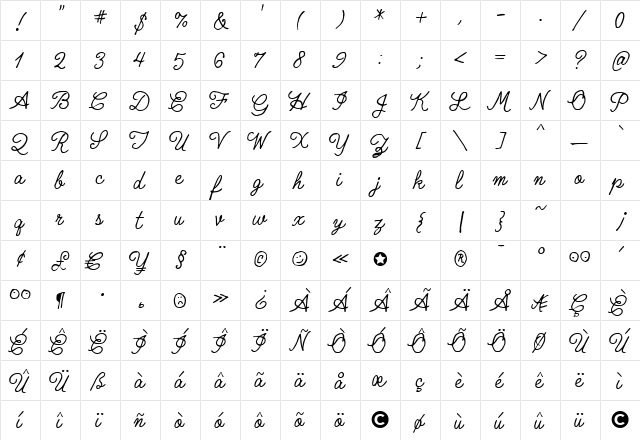
QuimbyMayoral Regular
Design Context for QuimbyMayoral Typeface
QuimbyMayoral takes a measured approach to typography — its balanced proportions and neutral character make it a reliable workhorse for both digital and print work.